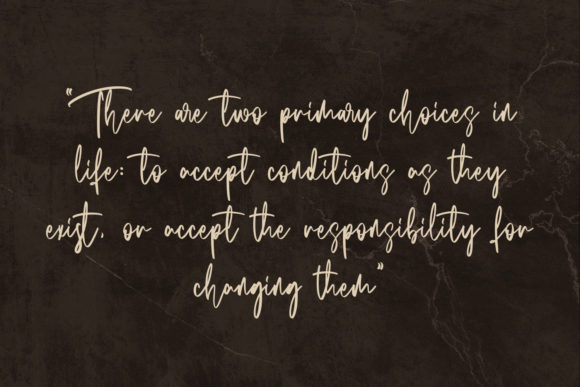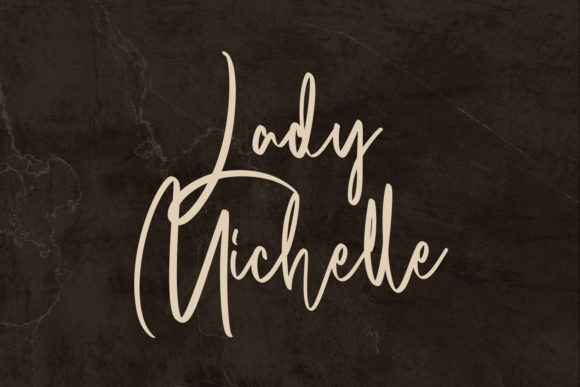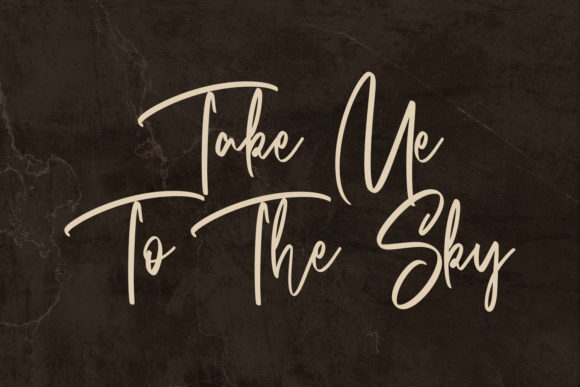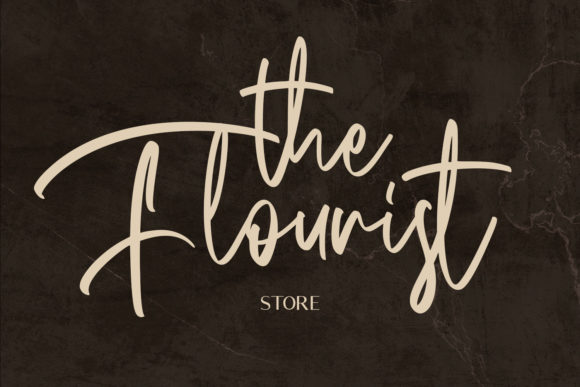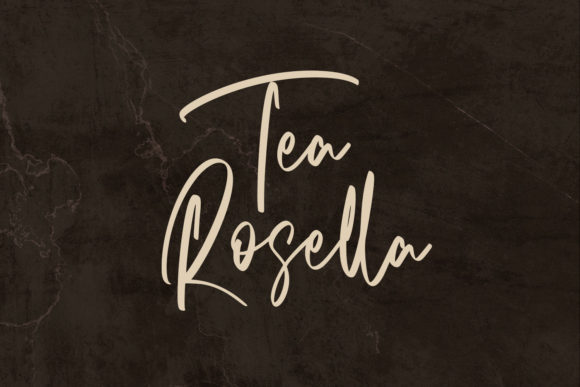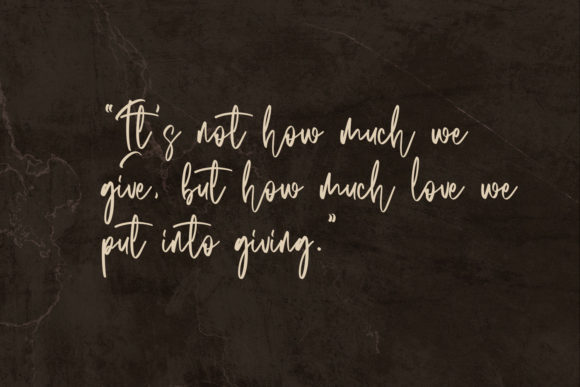
Introducing Conspirates Signature: The Ultimate Handwritten Font for Creative Projects
Are you tired of using the same old fonts for your design projects? Do you want to add a touch of personality and uniqueness to your creations? Look no further than Conspirates Signature, a relaxed, adaptable, and one-of-a-kind handwritten font that’s perfect for designers and crafters alike.
What Makes Conspirates Signature So Special?
Conspirates Signature is a trendy and casual font that’s designed to match an incredibly large set of projects. Whether you’re working on a logo, branding, packaging, or social media graphics, this font is sure to make your designs stand out from the crowd. Its unique and adaptable nature makes it perfect for a wide range of applications, from creative crafts to digital designs.
The Benefits of Using Conspirates Signature
So, what are the benefits of using Conspirates Signature for your design projects? Here are just a few:
- Unique and Eye-Catching: Conspirates Signature is a one-of-a-kind font that’s sure to grab attention. Its trendy and casual feel makes it perfect for designs that need to stand out from the crowd.
- Adaptable: This font is incredibly versatile and can be used for a wide range of projects, from logos and branding to packaging and social media graphics.
- Easy to Read: Despite its unique and handwritten nature, Conspirates Signature is incredibly easy to read, making it perfect for designs that require a clear and concise message.
- Customizable: With Conspirates Signature, you can easily customize the font to fit your design needs. Whether you want to change the color, size, or style, this font is incredibly flexible.
Who Can Benefit from Conspirates Signature?
Conspirates Signature is perfect for a wide range of designers and crafters, including:
- Graphic Designers: Whether you’re working on a logo, branding, or packaging, Conspirates Signature is a great addition to your font library.
- Social Media Managers: If you’re responsible for creating social media graphics, Conspirates Signature is a great way to add some personality and flair to your designs.
- Crafters: If you’re a crafter who loves to create handmade cards, gift tags, and other paper crafts, Conspirates Signature is a great font to use for your projects.
- Digital Artists: If you’re a digital artist who loves to create digital art, Conspirates Signature is a great way to add some texture and personality to your work.
In conclusion, Conspirates Signature is a unique and adaptable handwritten font that’s perfect for designers and crafters alike. Its trendy and casual feel makes it perfect for a wide range of projects, from logos and branding to packaging and social media graphics. With its ease of use and flexibility, Conspirates Signature is a great addition to any font library.